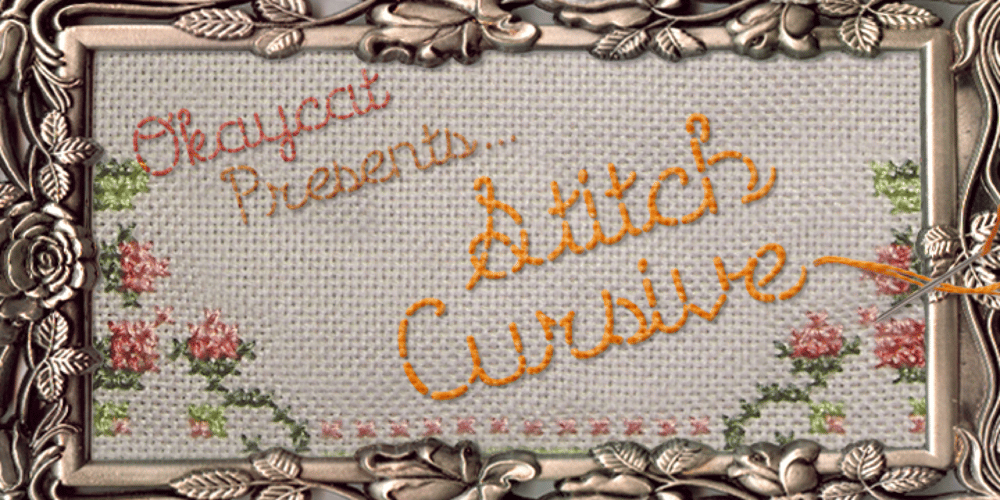
Stitch Cursive Font Family was designed by Natsuko Hayashida and published by Okaycat. Stitch Cursive contains 1 styles and family package options. Stitch Cursive is a cute cursive font, with the added distinction of looking hand sewn! The applications of this full-out cursive font are many. It is designed to be creative & free flowing, but I also wanted it to be at least somewhat proper. The stitch is the central element to this unique design. Use Stitch Cursive any time you want fancy, legible, and luxurious text. Works great for logo design and beautiful for titles. Go ahead and have fun with it. Stitch Cursive is extended, containing the full West European diacritics & a full set of ligatures, making it suitable for multilingual environments & publications.